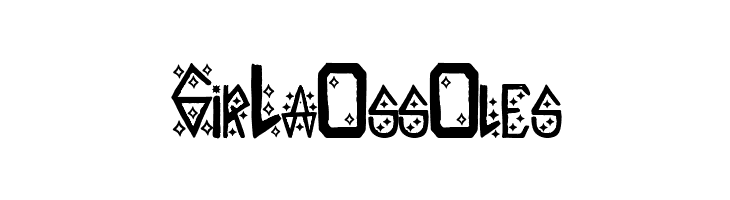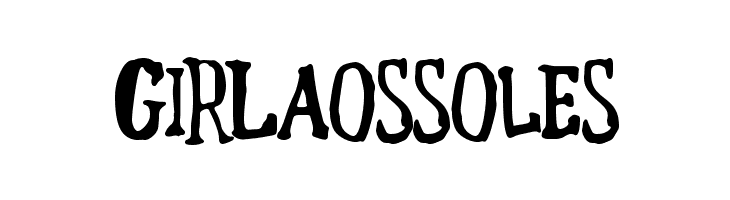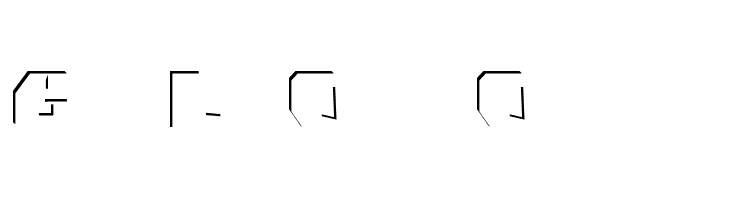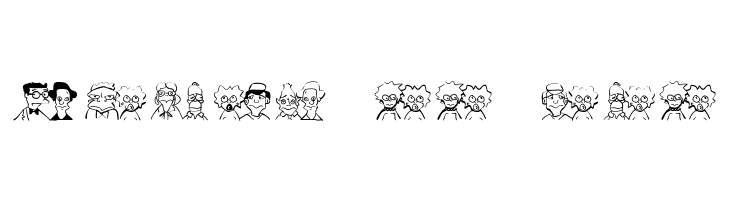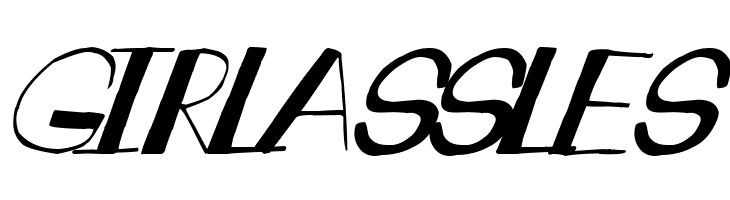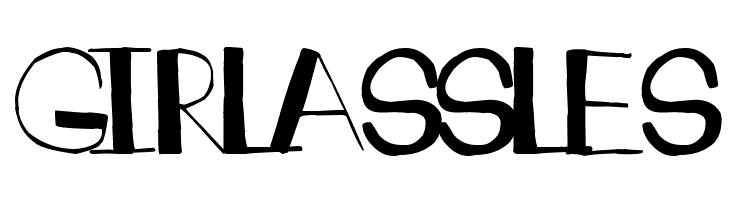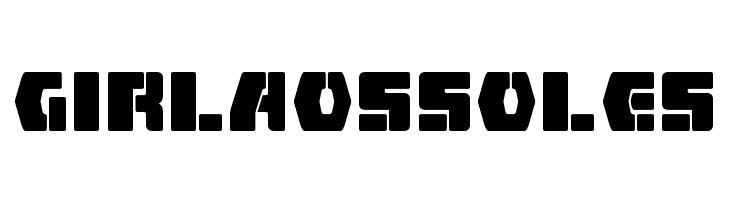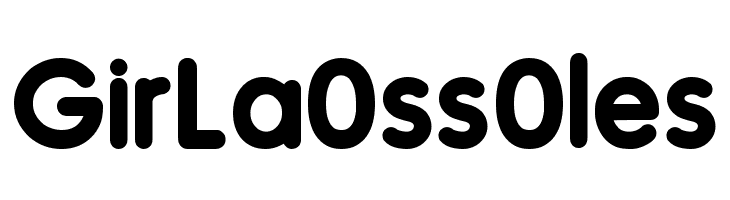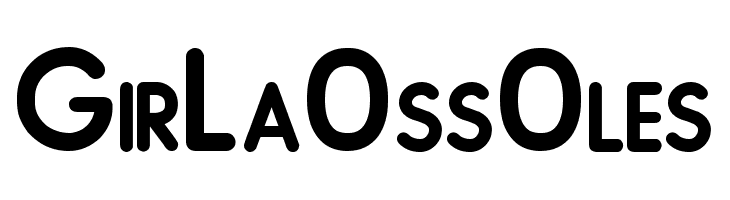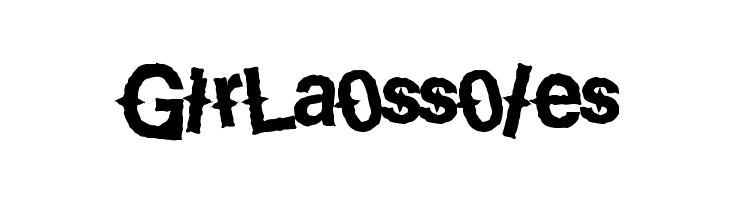
• Countdown
( Fonts by Ditya Ananto )
A bold, decorative font with geometric patterns and angular lines.
• Counterfire
A bold, geometric font with a futuristic, industrial style.
• CountryDiamonds
A bold, hand-drawn font with irregular edges and a playful, energetic style.
• Couples
Cartoon couples form each character in a playful, hand-drawn style.
• Coverface SE Bold
• Coverface SE Light
• Cracked stone Inner
( Fonts by DumadiStyle )
A rugged, fragmented font resembling cracked stone with jagged, angular lines.
• crankdeal
A playful, hand-drawn font with bold, irregular strokes and a whimsical style.
• crankdeal tilt
A bold, slanted font with dynamic strokes and a modern, energetic style.
• Crazer
( Fonts by Letteratom )